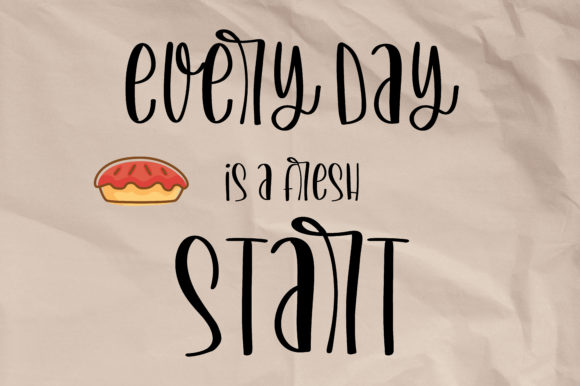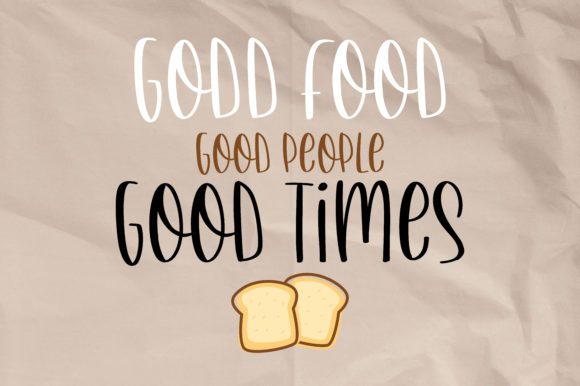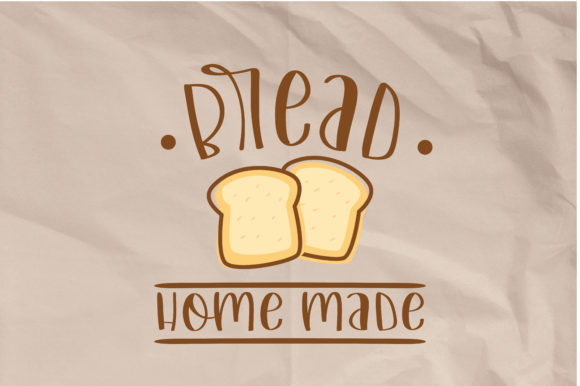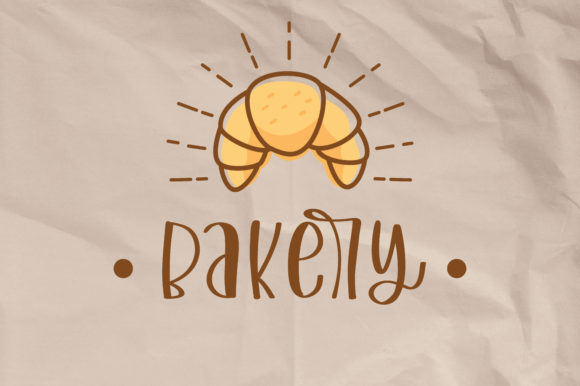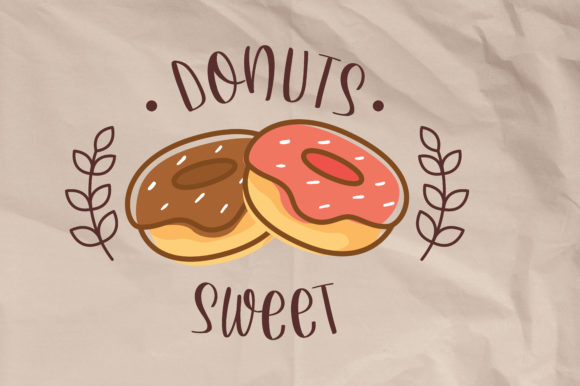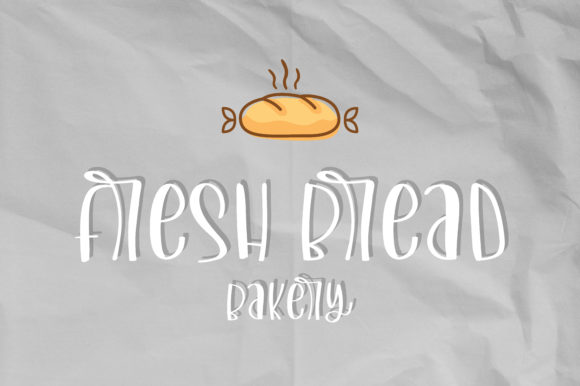
Meet Your New Design BFF: Brownie Cookie Font
Have you ever stared at a blank canvas, waiting for that perfect spark of creativity to strike? It’s a moment we’ve all been there – the one where the blank page or screen stares back, daring us to bring our ideas to life. But what if I told you that there’s a secret ingredient to making those creative moments a little more magical? Enter the delightful Brownie Cookie Font, a cheerful and friendly handwritten font that’s about to become your new design best friend.
This charming font is more than just a pretty face – it’s a powerful tool that can elevate your design projects to new heights. Whether you’re working on branding, headings, wedding designs, or invitations, Brownie Cookie Font is the perfect companion to help you bring your vision to life. Its versatility and charm make it an invaluable asset for designers, and we can’t wait to see what amazing things you’ll create with it.
Brownie Cookie Font Key Features
- Unique Characteristics: The font features a distressed, handwritten style with a mix of bold and cursive elements, giving it a playful and whimsical feel.
- Language Support: Supports a wide range of languages, including Latin, Cyrillic, and Greek, making it suitable for various design projects.
- Font Weight and Style: Offers a range of font weights, from Light to Bold, and styles, including Regular, Italic, and Oblique, providing flexibility for different design needs.
- Scalability: Designed to be highly scalable, ensuring that the font remains clear and legible even at small sizes or high resolutions.
Brownie Cookie Font Review
Overall, I’d say the Brownie Cookie Font has some great qualities, but also a few areas where it falls short. ✨
- The font’s playful and whimsical nature makes it perfect for use in bakeries, cafes, or any food-related branding.
- The bold and cursive lines add a sense of warmth and friendliness, which can be great for building a brand identity.
- The font is highly customizable, allowing you to adjust the size, color, and spacing to suit your design needs.
- ⚠️ The font may be too casual for more formal or professional branding, as it can come across as childish or immature.
- ⚠️ Some of the letterforms can be a bit difficult to read at smaller font sizes, particularly the ‘g’ and ‘q’.
- ⚠️ The font’s high customizability can make it difficult to maintain consistency across different platforms and devices.
Overall, I think the Brownie Cookie Font is a great choice for casual, food-related branding, but may not be the best fit for more formal or professional projects.
Use the Brownie Cookie Font to add a playful touch to your designs. Pair it with bold colors and fun graphics to create eye-catching visuals. Experiment with different font sizes and styles to add depth and interest to your text.
The Brownie Cookie Font is perfect for:
- Birthday invitations and party decorations
- Food and dessert branding
- Children’s books and educational materials
- Playful marketing campaigns and social media graphics